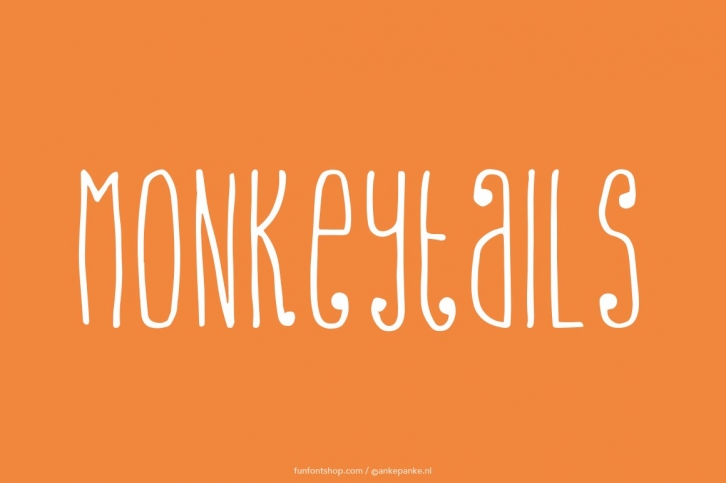
A thin, happy font that looks a bit like monkey tails. This font was first draw by hand, scanned, vectorized and converted to a TTF file so you type with it. They have some imperfections, but I believe that adds to the handmade feeling.